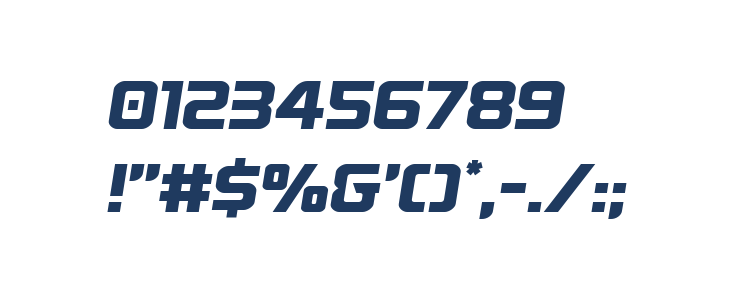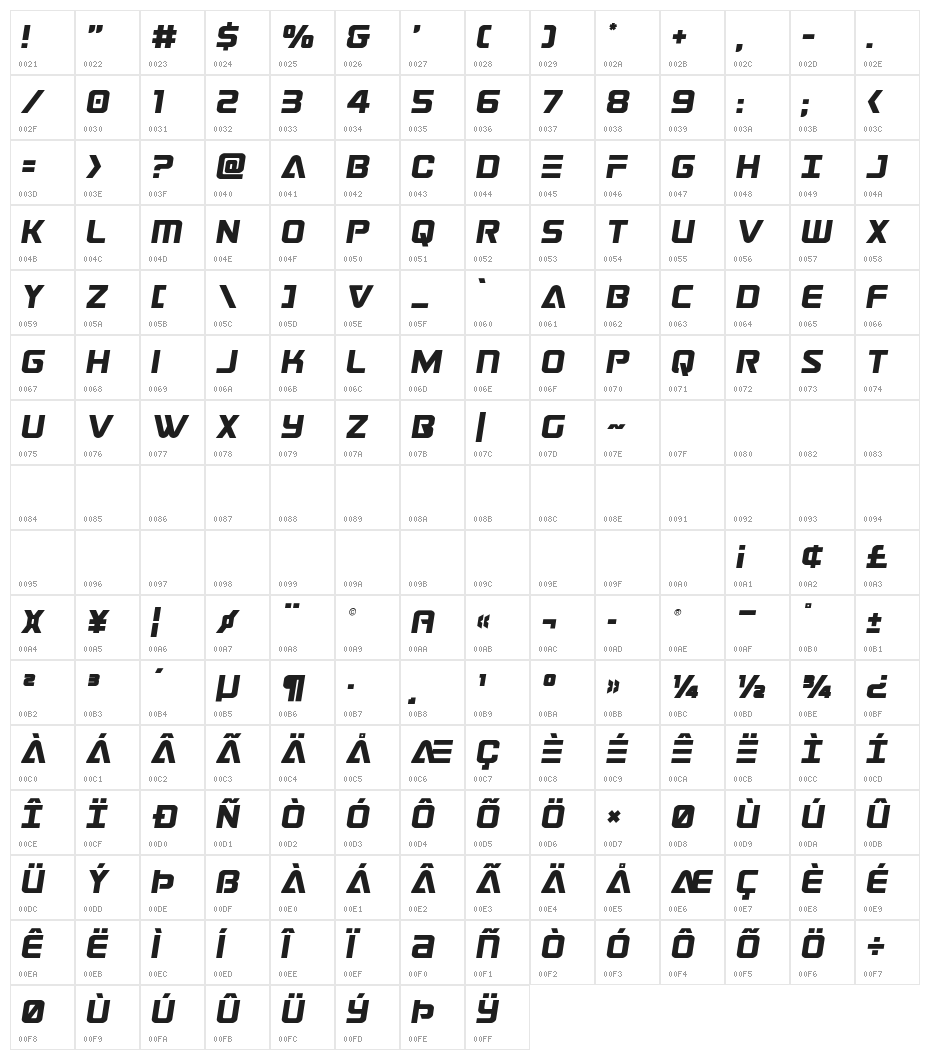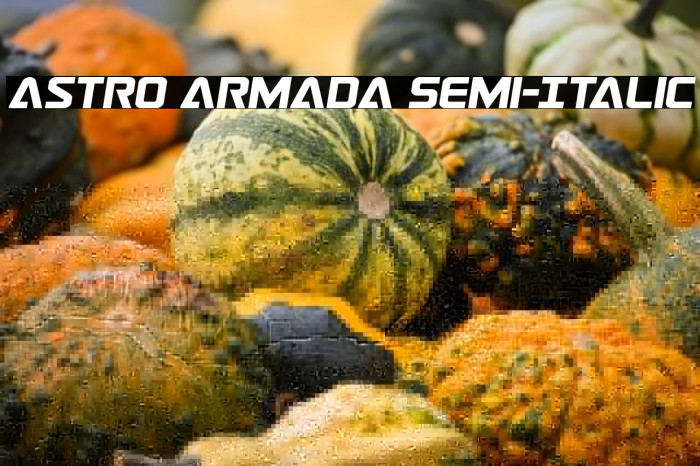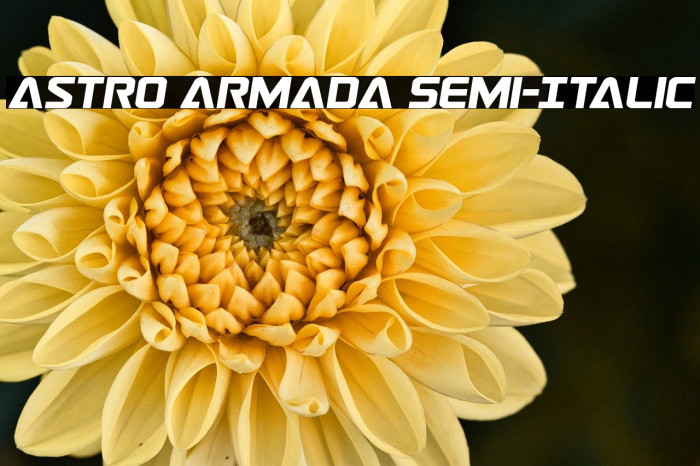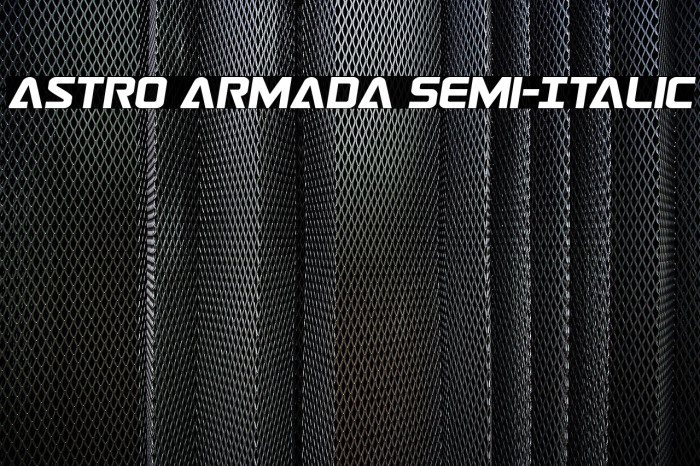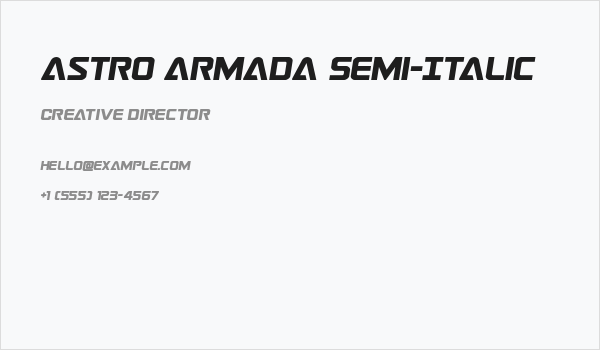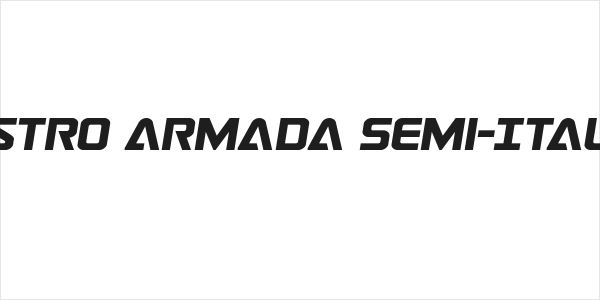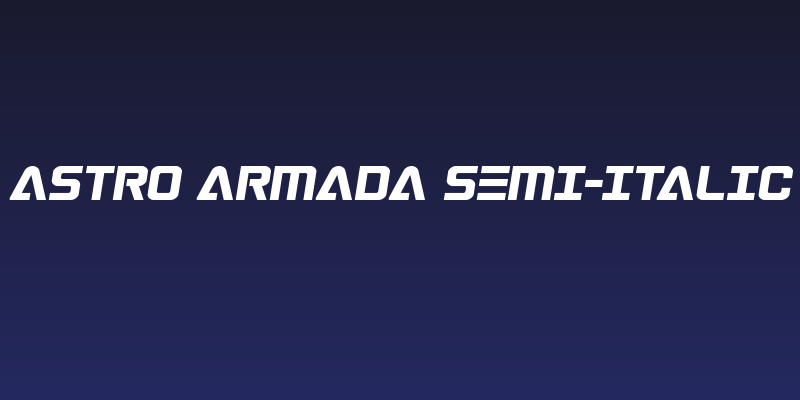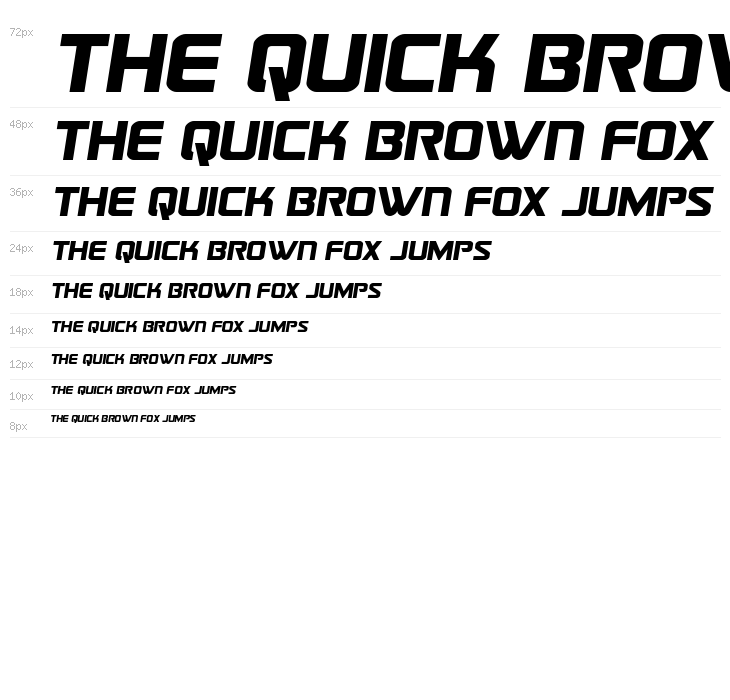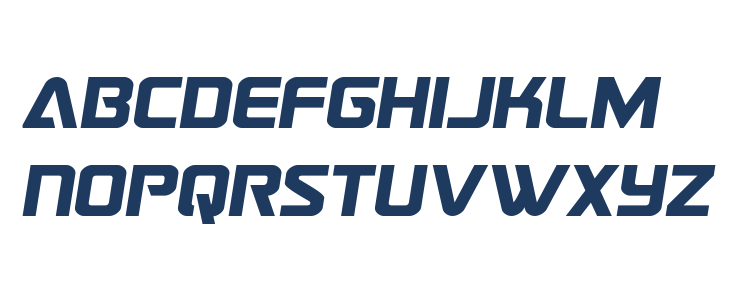
Astro Armada Semi-Italic Font
Astro Armada Semi-Italic Description
This font features a futuristic and dynamic design, characterized by its bold, angular lines and semi-italic style. The uppercase letters are distinct with sharp edges and a forward-leaning posture, giving a sense of motion and speed. The lowercase letters maintain the same angular aesthetic, ensuring consistency across the typeface. Numbers and special characters are designed to match the bold and modern look, making them ideal for attention-grabbing displays. The font's overall appearance is sleek and modern, suitable for projects that require a contemporary and energetic feel.
| Use Case | Headlines, Logos, Display text |
| Proposed Projects | Ideal for sci-fi themed projects, video game titles, technology branding, and modern advertising campaigns. |